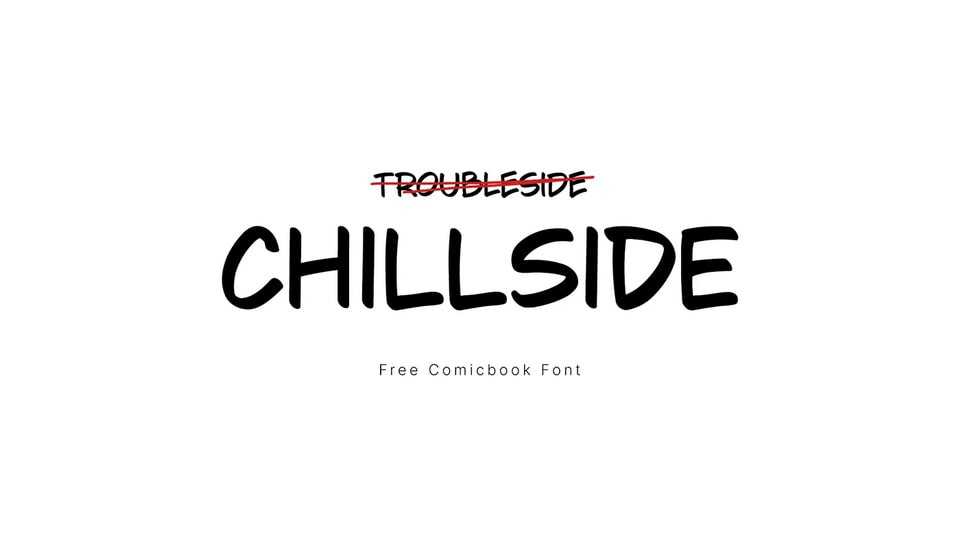
Download Chillside font, a casual comic book typeface designed to bring a laid-back, handwritten energy to your lettering. Its rounded, slightly uneven strokes give it a natural rhythm and an approachable, friendly tone.